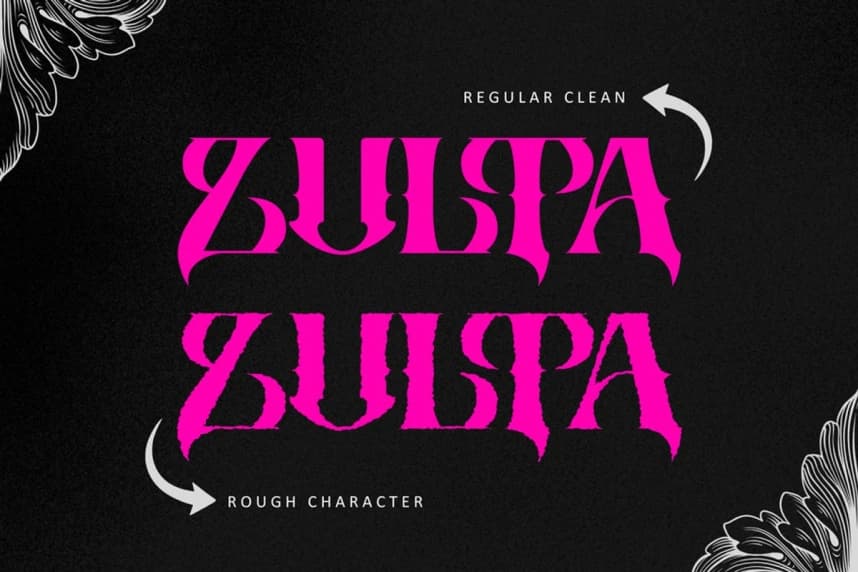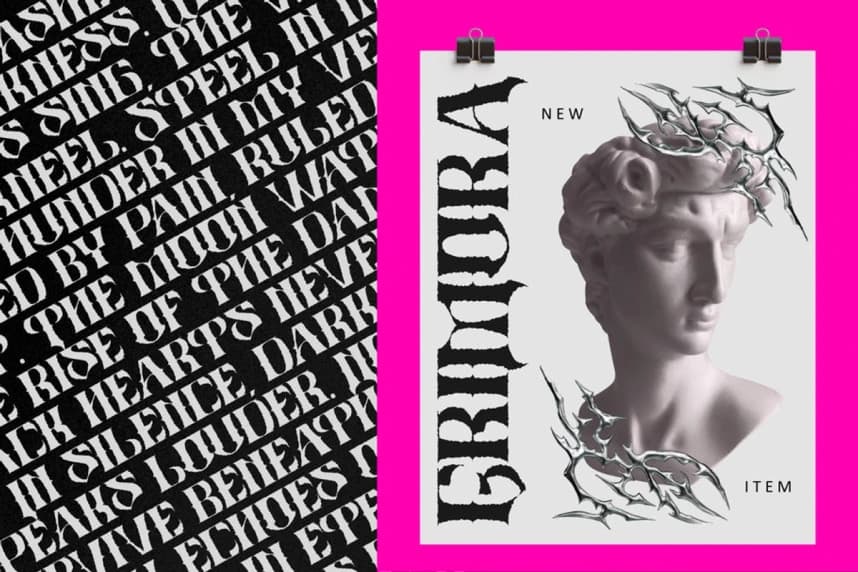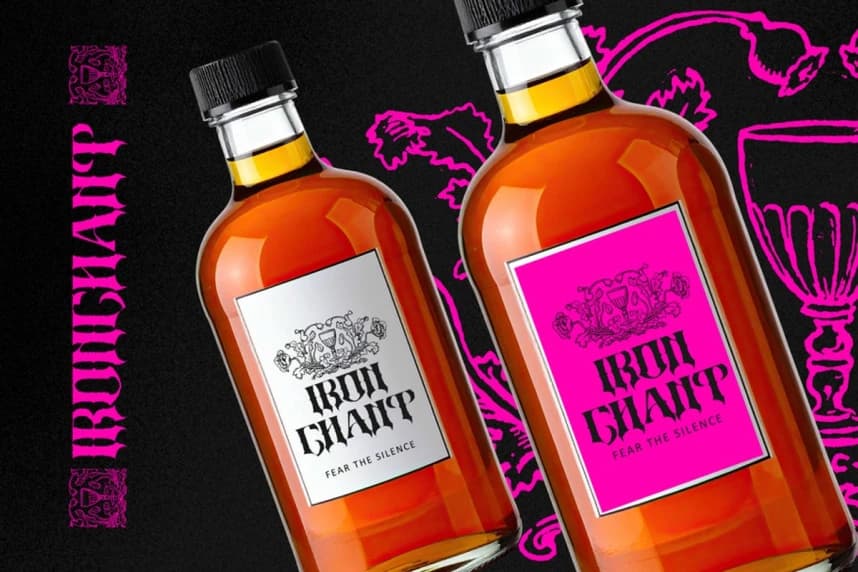
Zulta Music Font
Zulta Music Font is a bold blackletter font family combining sharp serif allcaps with powerful gothic energy. Available in regular and rough styles, this typeface is designed for metal music promotion, album covers, band merchandise, posters